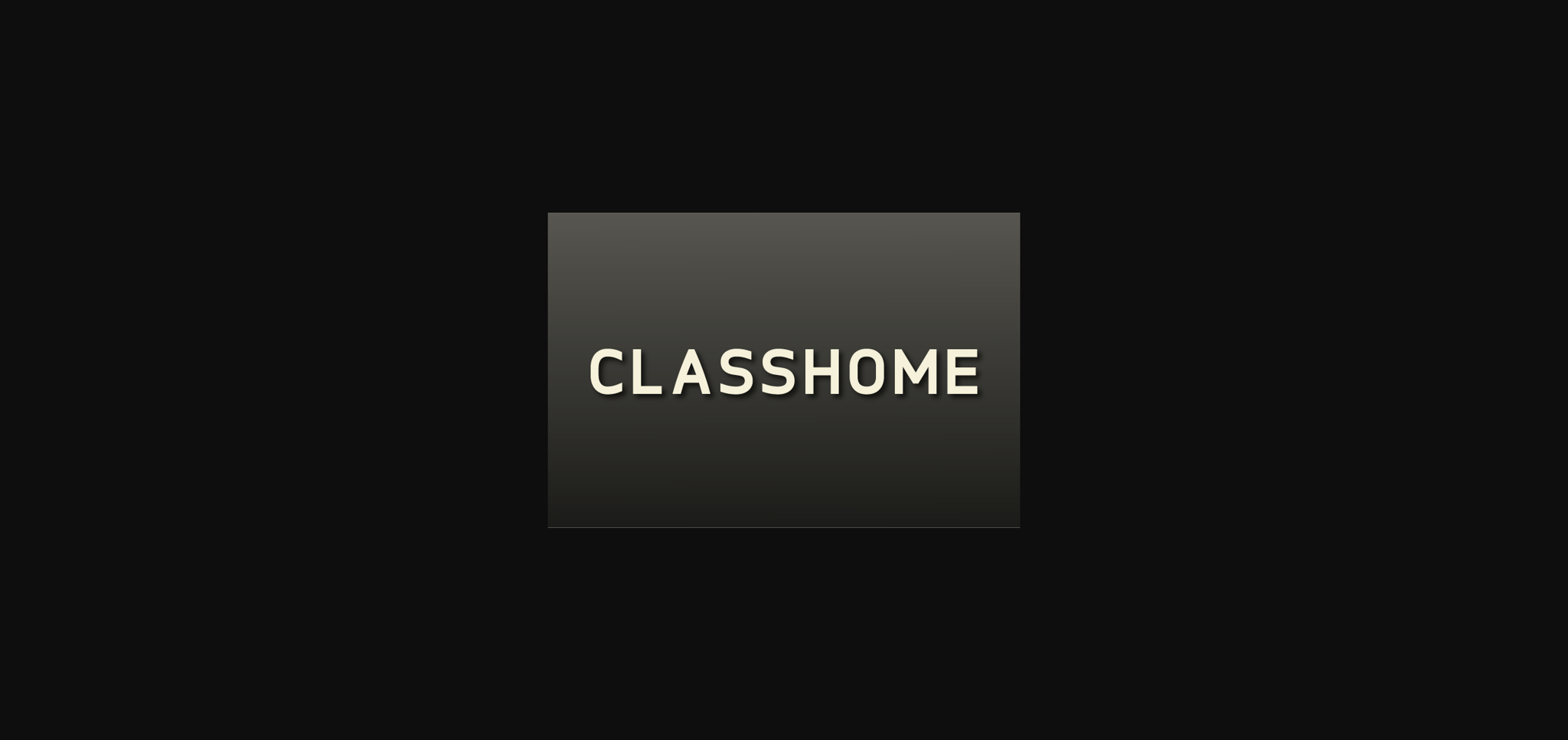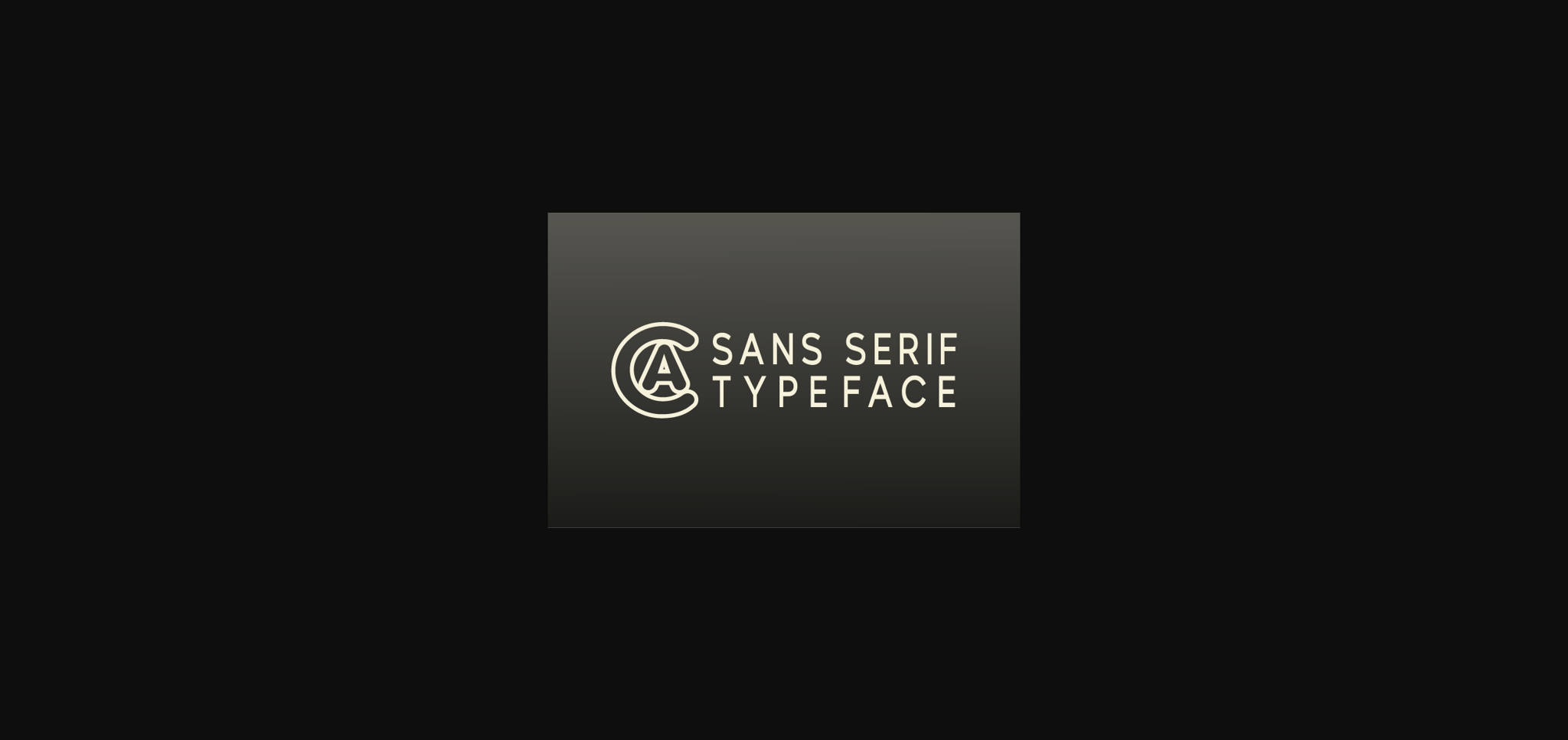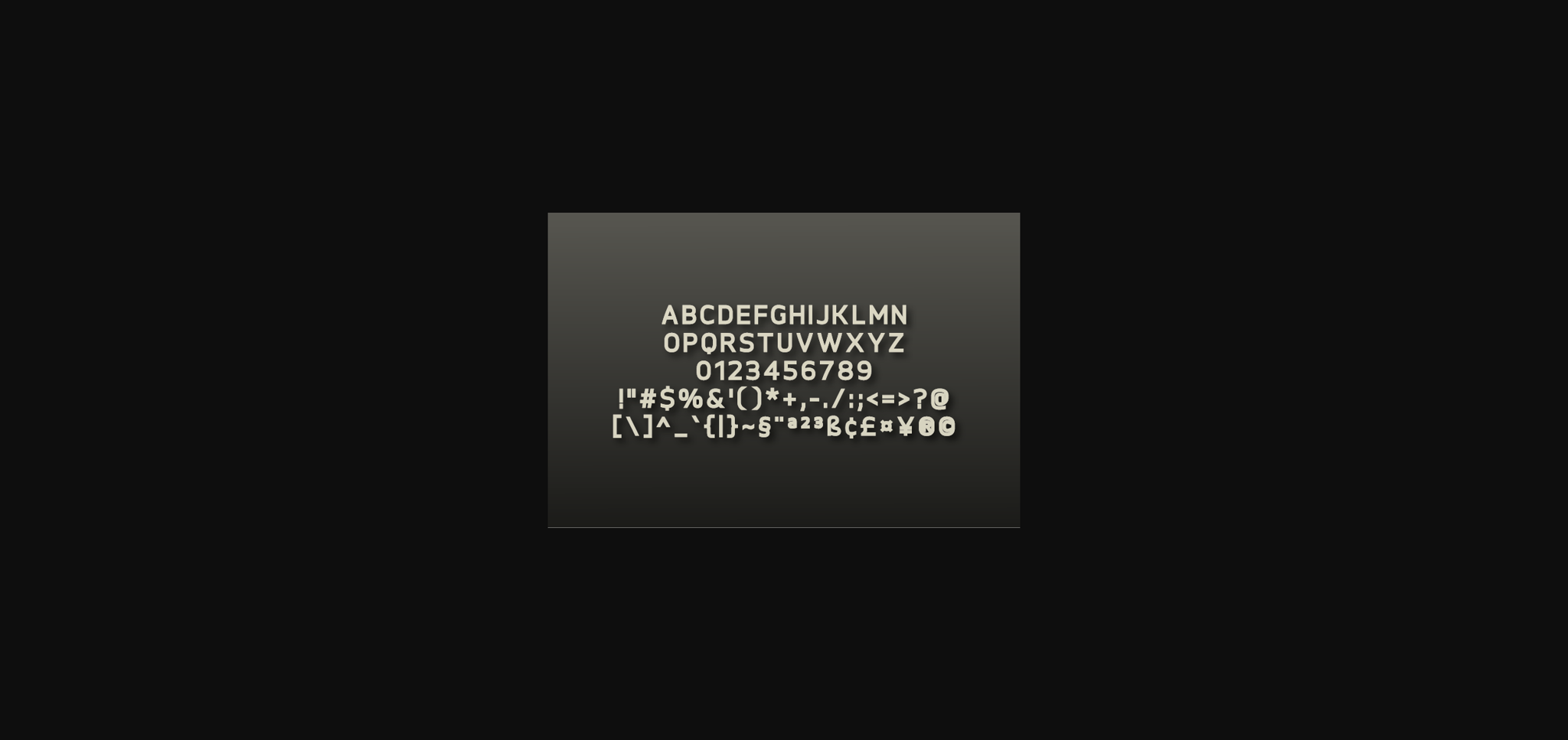
Classhome Font
About Classhome Font
Classhome is a minimal, yet elegant sans serif font. Suitable to a wide variety of designs due to its neat and simple style, Classhome has the potential to become your favorite go-to font, no matter the occasion!